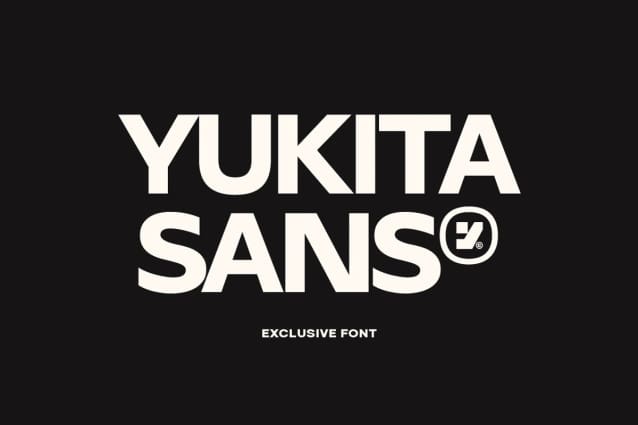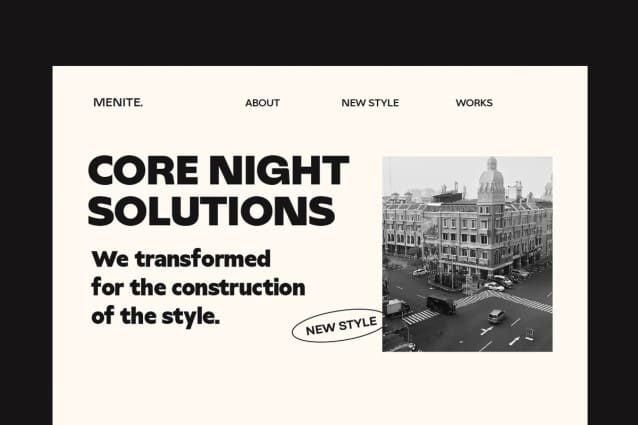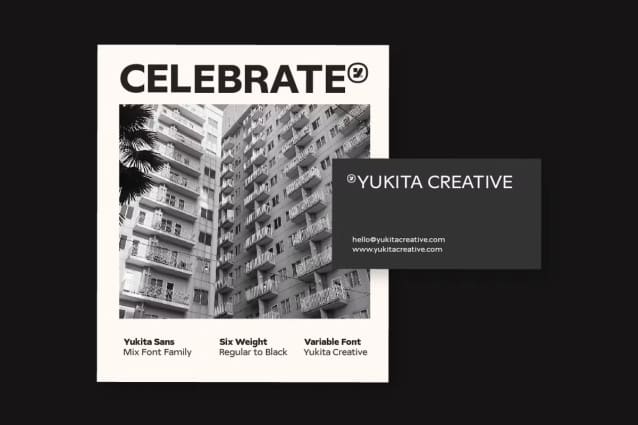
Yukita Sans Font Family
Yukita Sans Font Family is a versatile and creative sans-serif font family, perfect for a variety of design projects. Celebrating its 6th edition, Yukita Sans Creative offers 6 distinct weights: Regular, Medium, Semi Bold, Bold, Extra Bold, and Black. Each weight is carefully designed to provide a unique character while maintaining consistency across the family. This font is ideal for branding, graphic design, web design, and more, ensuring your work stands out with a modern and polished look.
Features:
• 6 distinct weights: Regular, Medium, Semi Bold, Bold, Extra Bold, and Black
• Modern and creative design
• Perfect for branding, graphic design, and web design
• Consistency across different weights
• Ideal for both print and digital projects
When to Use It: Yukita Sans is the perfect choice for any project that requires a contemporary and cohesive typeface. Whether you’re designing a website, creating a brand identity, or working on a digital campaign, Yukita Sans provides the flexibility and style you need.